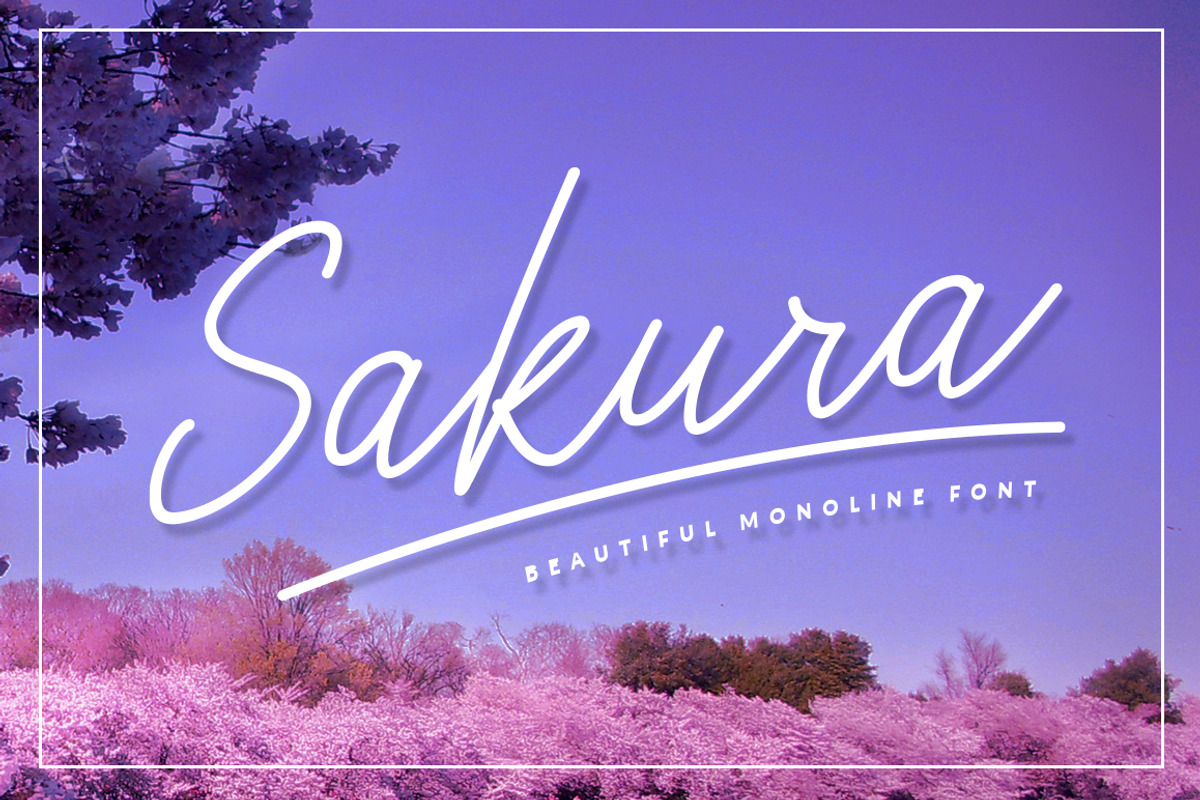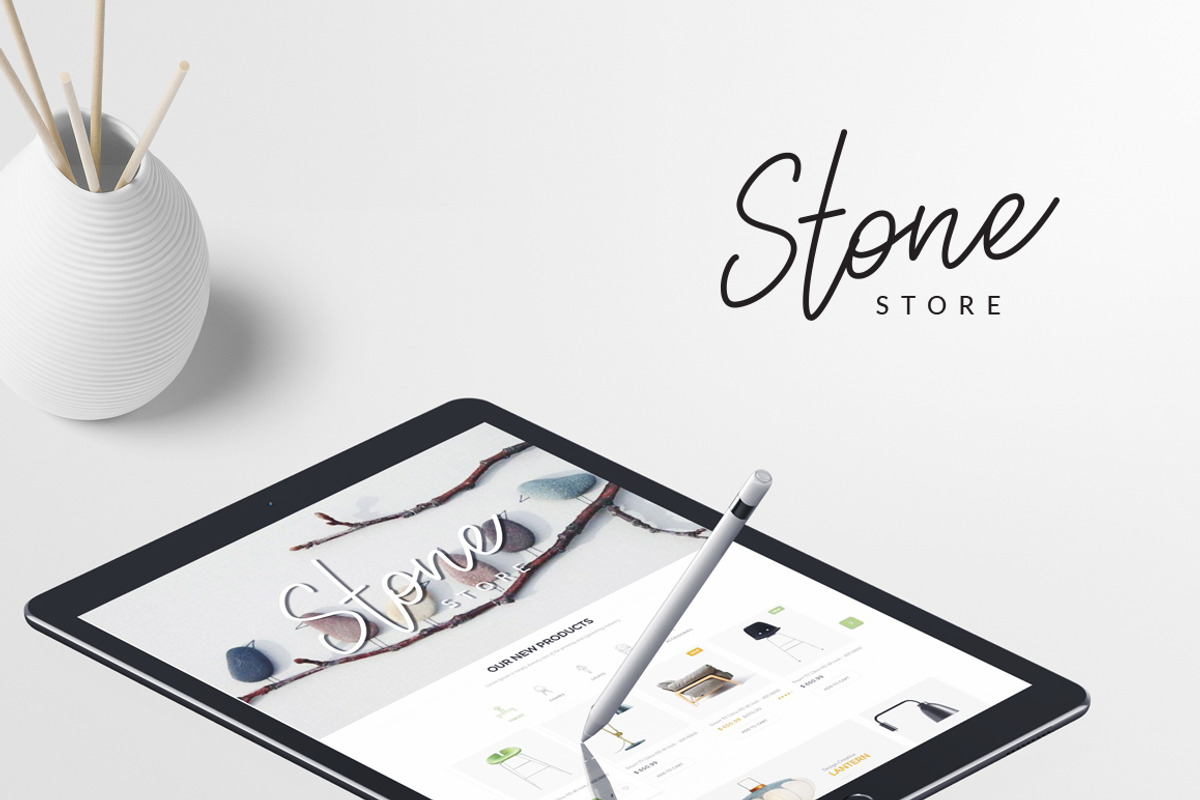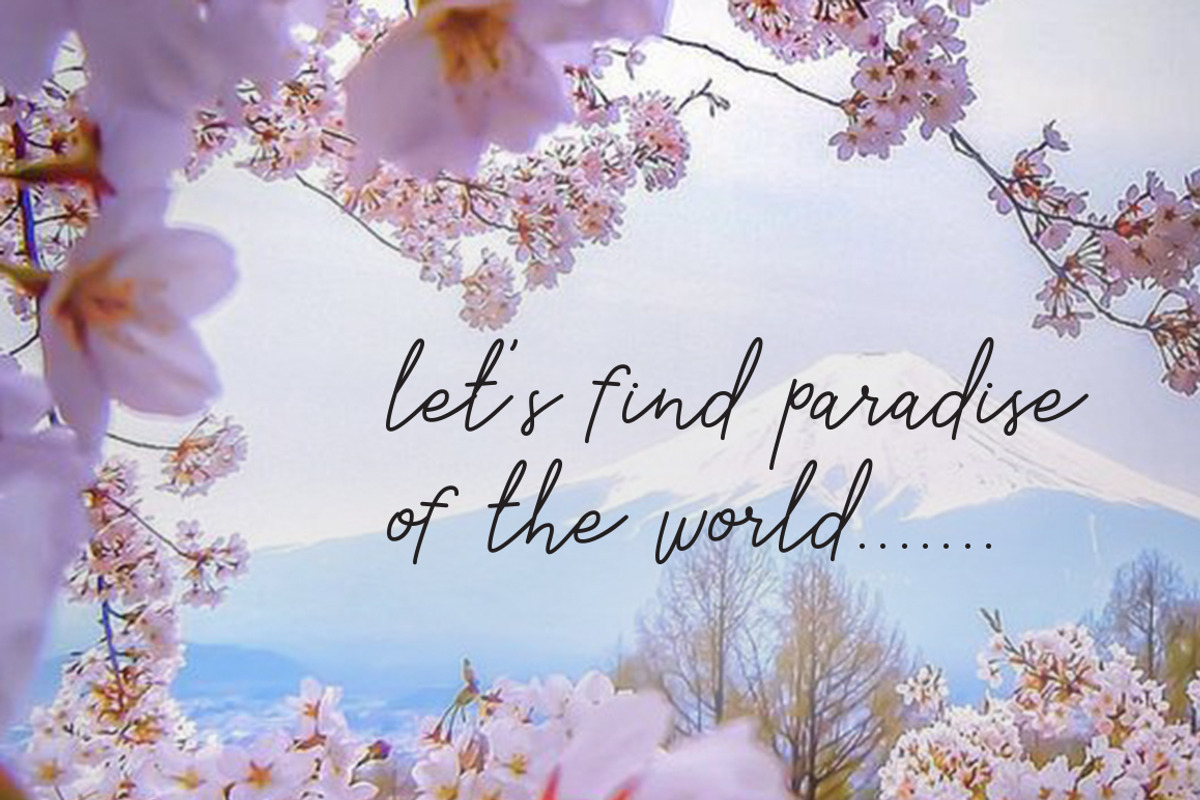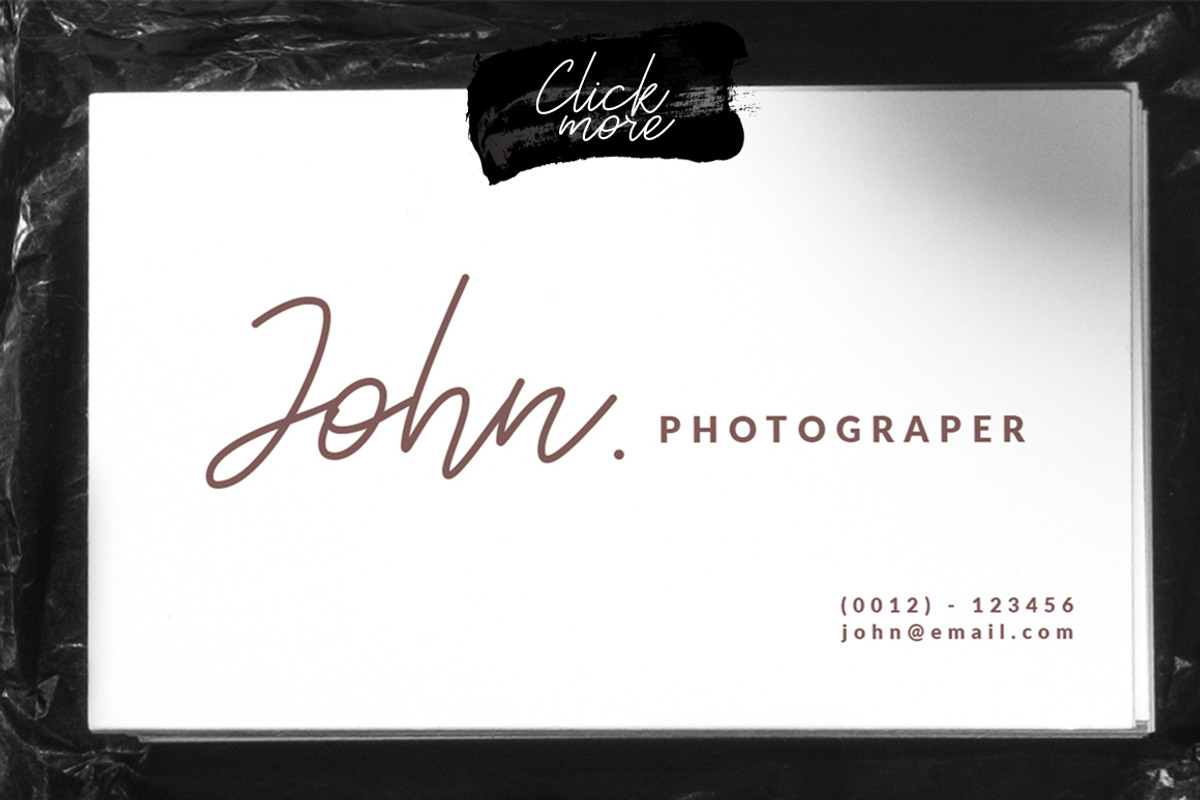
Sakura Font Set
Sakura Font Set by ShowUp! Studio is a font selected for branding, posters, packaging, typography.
Why Sakura Font Set is worth a look
Sakura Font Set by ShowUp! Studio fits naturally into Branding, posters, packaging, typography.